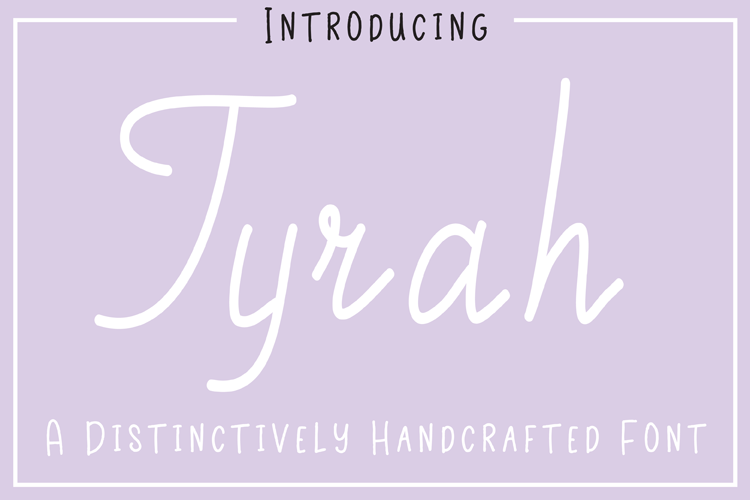
Tyrah
This stylish typeface will look great in all your graphic design and craft projects. Use it to create wedding invitations, T Shirts, and paper crafts.